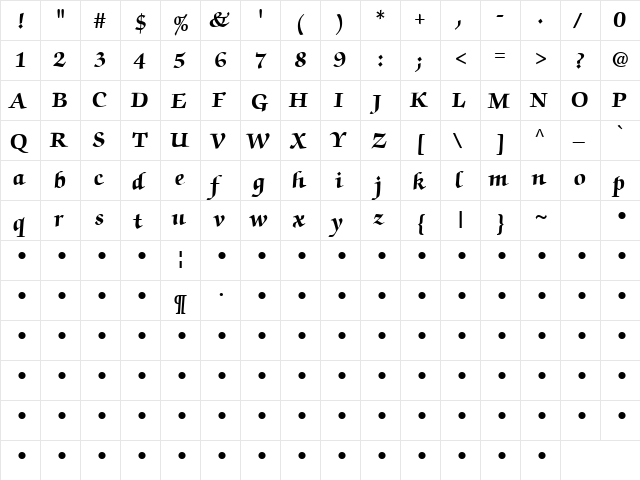
QTChanceryType Bold
Design Context for QTChanceryType Typeface
QTChanceryType is a composed and adaptable typeface that performs quietly and consistently across a wide range of design contexts. The heavy weight commands attention and anchors typographic hierarchies.